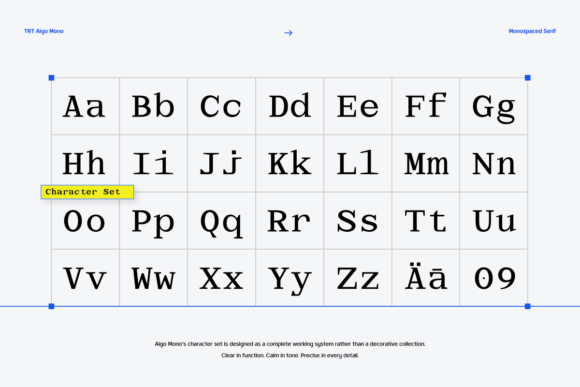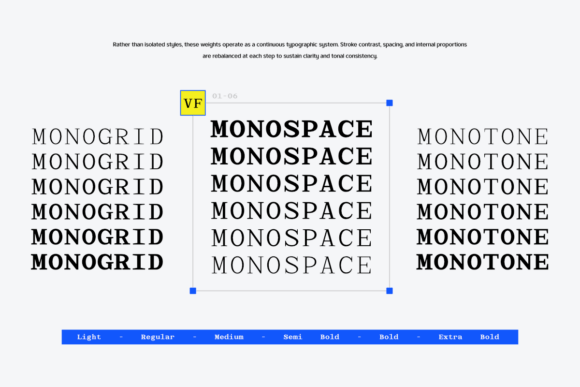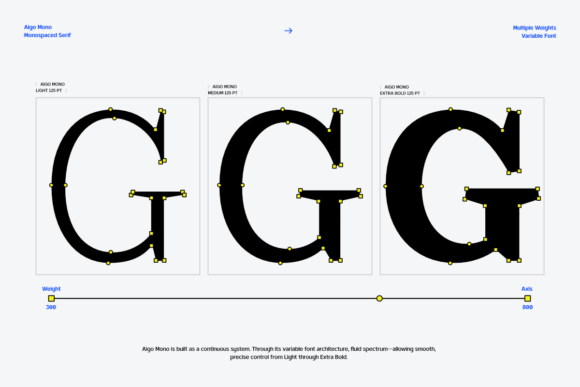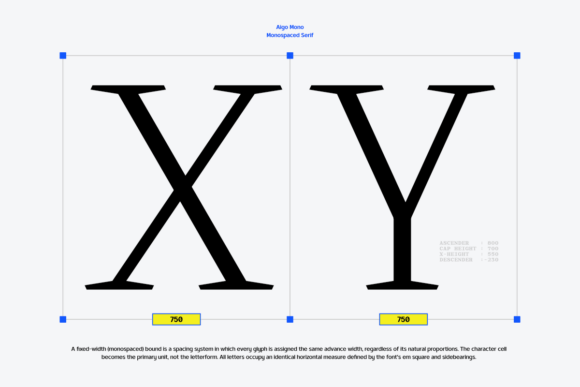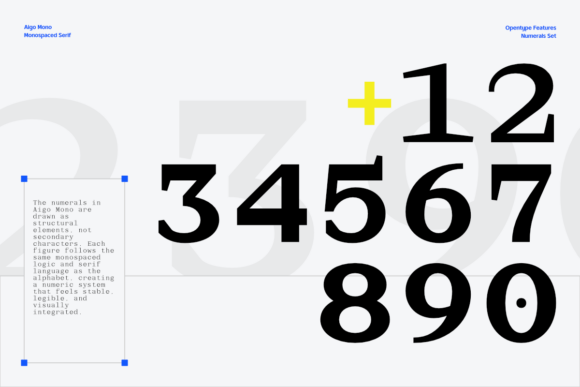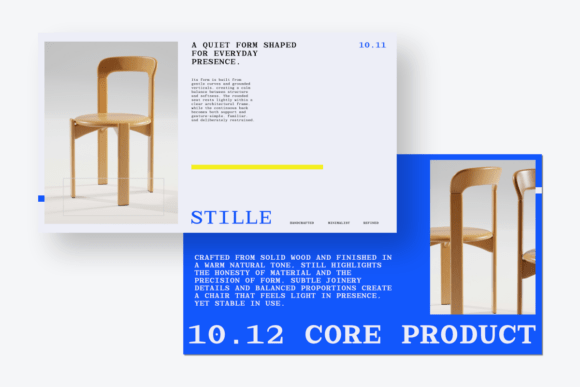
Aigo Mono Font: A Masterclass in Typographic Discipline
In the world of typography, few fonts manage to strike a balance between structure and expressiveness. Aigo Mono, a monospace serif typeface, is one such font that has successfully achieved this delicate balance. Built around structure, rhythm, and typographic discipline, Aigo Mono is a font that embodies the principles of good design while offering a unique character.
The Characteristics of Aigo Mono
Aigo Mono is a monospace font, meaning that all letterforms have equal width. This feature establishes a consistent grid that brings clarity and order to complex layouts, making it especially effective in systems-driven design. The equal-width letterforms also make it easier to create aligned and organized text, which is a significant advantage in editorial layouts and interfaces.
One of the standout features of Aigo Mono is its serif details. The subtle serifs introduce a sense of character and warmth to the font, softening the rigid nature of monospace typography without compromising legibility. The serifs also add a touch of sophistication and elegance, making Aigo Mono suitable for a wide range of design applications.
Design Philosophy and Versatility
Aigo Mono is designed for designers who value precision and consistency. The font’s carefully balanced proportions and multiple weights allow it to perform across various design contexts, from editorial layouts to interfaces and experimental compositions. Whether you’re working on a digital project or a print publication, Aigo Mono offers a composed, modern voice that is both functional and expressive.
The font’s versatility is further enhanced by its range of weights. With multiple weights at your disposal, you can use Aigo Mono to create visual hierarchies and add depth to your designs. The font’s adaptability also makes it an excellent choice for designers who like to experiment with different typographic styles.
Applications of Aigo Mono
Aigo Mono’s unique combination of structure and expressiveness makes it suitable for a wide range of design applications. Here are a few examples:
- Editorial Design: Aigo Mono’s clarity and legibility make it an excellent choice for editorial layouts, such as magazines, newspapers, and books.
- Interfaces: The font’s equal-width letterforms and subtle serifs make it well-suited for digital interfaces, such as websites, apps, and software.
- Experimental Compositions: Aigo Mono’s range of weights and adaptability make it an excellent choice for experimental typographic compositions.
Why Choose Aigo Mono?
With so many fonts available, why choose Aigo Mono? Here are a few reasons:
- Unique Character: Aigo Mono’s subtle serifs and carefully balanced proportions give it a unique character that sets it apart from other monospace fonts.
- Versatility: The font’s range of weights and adaptability make it suitable for a wide range of design applications.
- Legibility: Aigo Mono’s equal-width letterforms and clear design make it highly legible, even in complex layouts.
Aigo Mono is a font that embodies the principles of good design while offering a unique character. Its combination of structure, rhythm, and typographic discipline makes it an excellent choice for designers who value precision and consistency. With its versatility, legibility, and unique character, Aigo Mono is a font that is sure to elevate your designs to the next level.
Whether you’re a designer, typographer, or craftsperson, Aigo Mono is definitely worth exploring. Its range of weights and adaptability make it suitable for a wide range of design applications, from editorial layouts to interfaces and experimental compositions.
In conclusion, Aigo Mono is a masterclass in typographic discipline, offering a composed, modern voice that is both functional and expressive. Its unique character, versatility, and legibility make it an excellent addition to any design project.